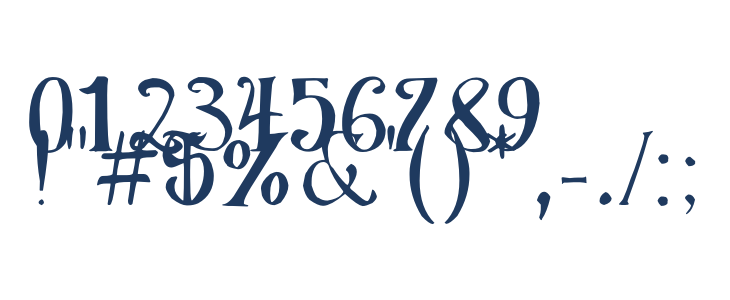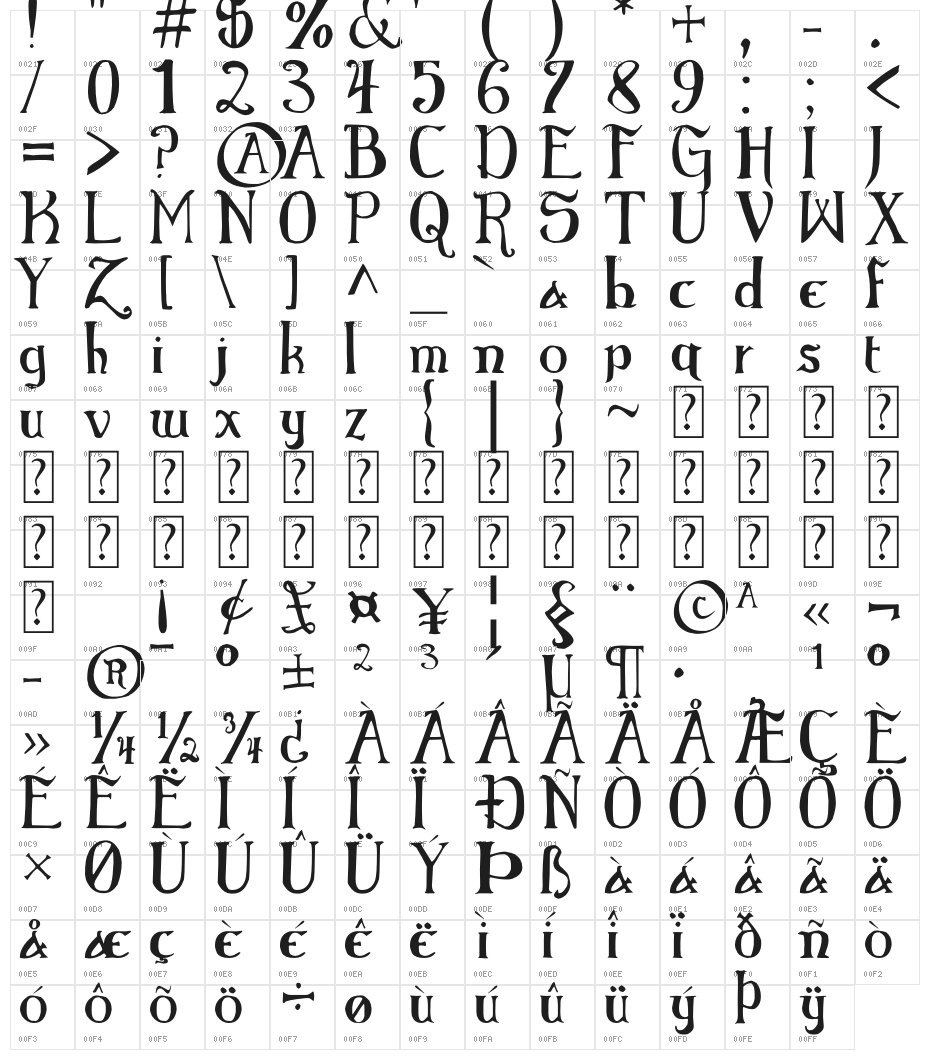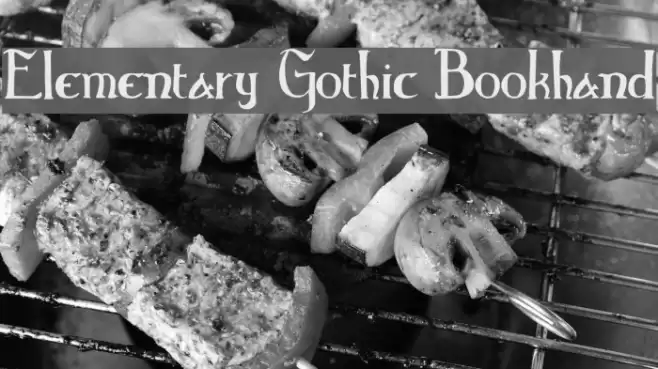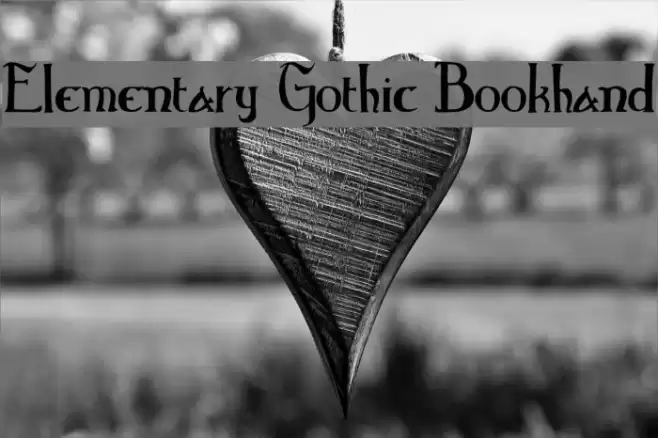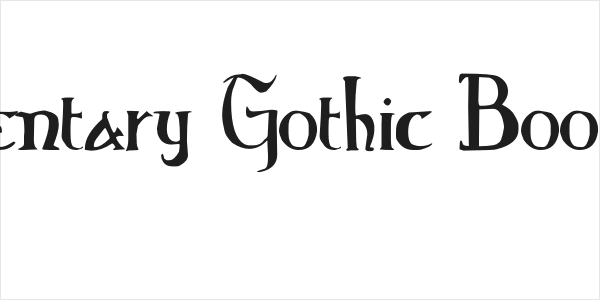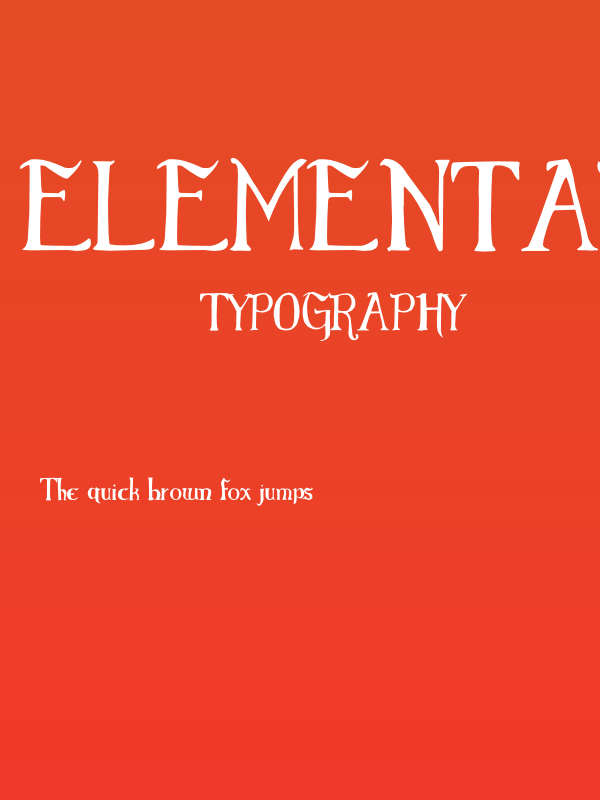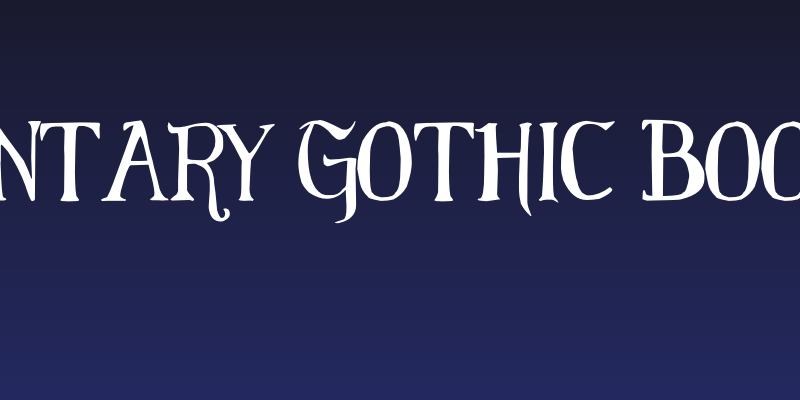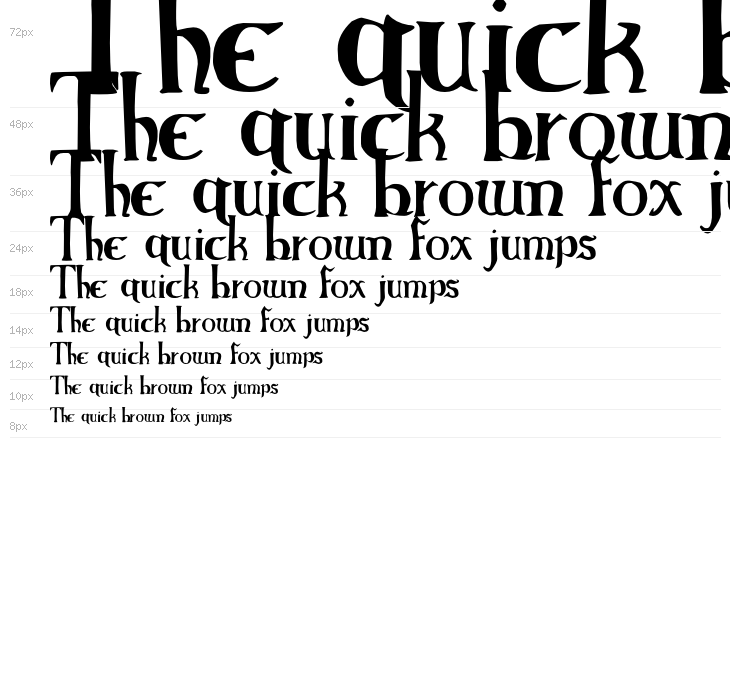
Elementary Gothic Bookhand Font
Elementary Gothic Bookhand Description
This font exhibits a classic Gothic style with a medieval flair, characterized by its ornate and intricate letterforms. The uppercase letters are tall and narrow, with sharp serifs and decorative elements that give them a historic and formal appearance. The lowercase letters maintain a consistent style, featuring unique curves and angles that enhance the font's overall aesthetic. The numerals are bold and distinct, complementing the alphabet with their strong presence. Special characters are designed with the same attention to detail, ensuring a cohesive look across all glyphs. This font is perfect for projects that require a touch of elegance and tradition.
| Proposed Projects | Ideal for historical documents, invitations, book covers, and branding that requires a traditional and elegant touch. |